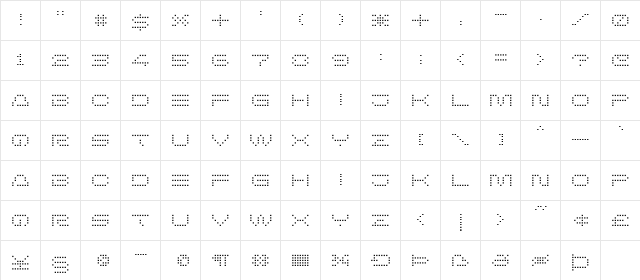
Herobule Regular
Design Context for Herobule Typeface
Herobule takes a measured approach to typography — its balanced proportions and neutral character make it a reliable workhorse for both digital and print work.